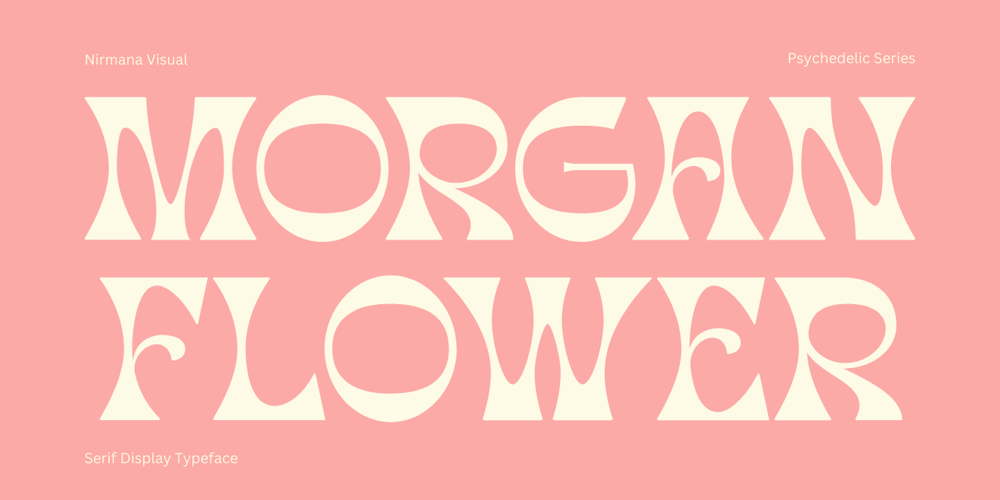
Morgan Flower Psychedelic Font Family was designed by Sigit Dwipa and published by Nirmana Visual. Morgan Flower Psychedelic contains 1 styles and family package options. Inspired by Psychedelic Poster Design,This font is perfect for those looking to add a unique and mind-bending touch to their designs. With its bold and fluid lines, this font will harmony for a diversity of design projects, including logos & branding, social media posts, advertisements & product designs.So why settle for boring fonts when you can use our Morgan Flower Psychedelic Typeface to elevate your designs to the next level? Give your projects a groovy touch and let your imagination run wild with this one-of-a-kind font.